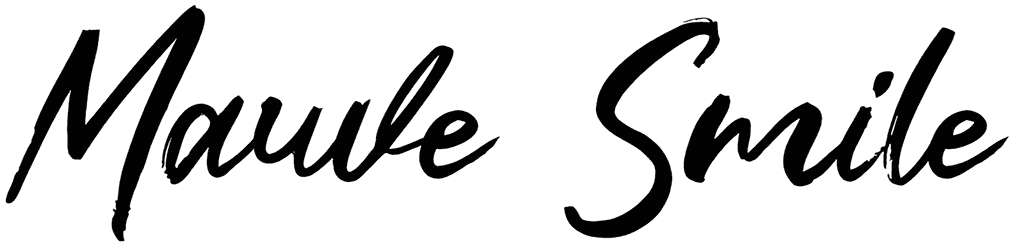
Mauve Smile Font
Refresh your design with a contemporary and modern face and convey a cool feeling to your viewers. As a brush font with a captivating mood, Mauve Smile would be a unique decoration for your words. Put this funny script font on your designs like banners, branding, postcards, or the like, and make them an urban style.